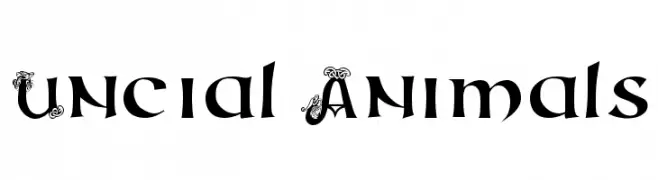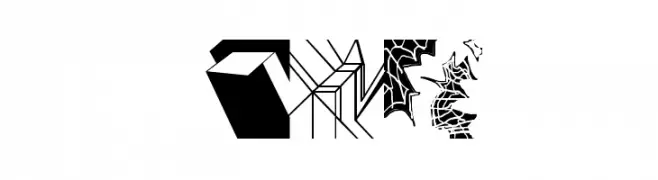
A bold, slanted font with sharp angles and a modern, dynamic style.
A decorative uncial script with intricate animal motifs and mythical embellishments.
A playful, illustrative font featuring baby alien characters as glyphs.
A bold, distressed font with a grunge aesthetic and textured appearance.
A bold, futuristic font with sharp, angular edges and a geometric style.
A traditional blackletter font with intricate detailing and bold, angular lines.
A playful, bold typeface with rounded, thick strokes and a comic-like style.
An intricate, calligraphic font with bold, angular strokes and decorative flourishes.